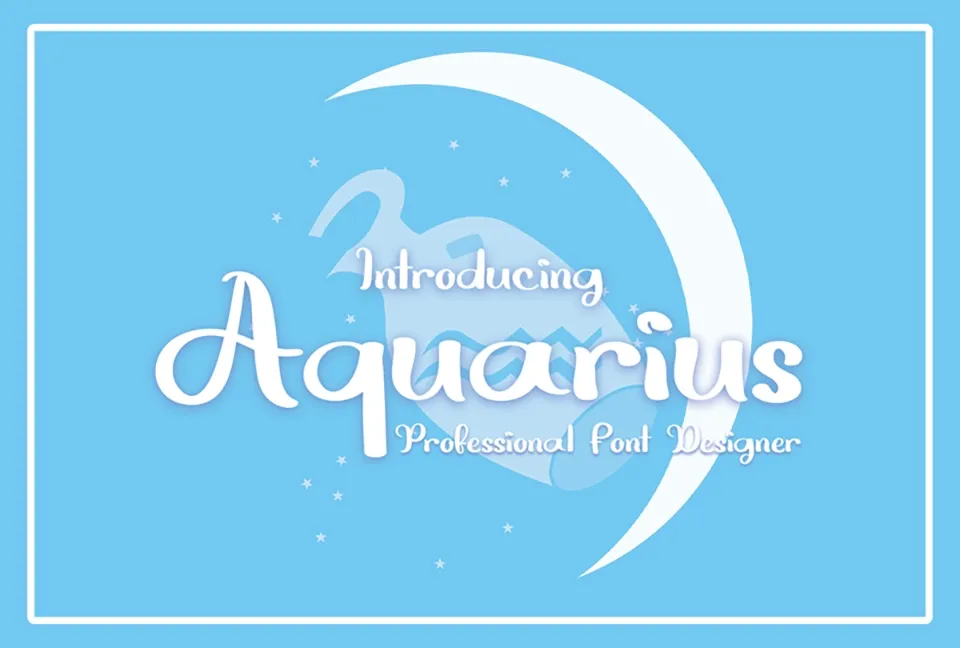
Aquarius Font
Aquarius Font is a playful and elegant typeface designed to bring creativity and charm to your projects. Featuring smooth curves and whimsical letterforms, this font is perfect for a wide range of applications, including branding, invitations, posters, and social media graphics. Its unique design combines a modern aesthetic with a touch of fantasy, making it ideal for themes that require both sophistication and fun. Aquarius Font stands out with its versatility and ability to convey personality while maintaining excellent readability. Whether used for bold headlines or delicate accents, this font adds a delightful and professional touch to any design.